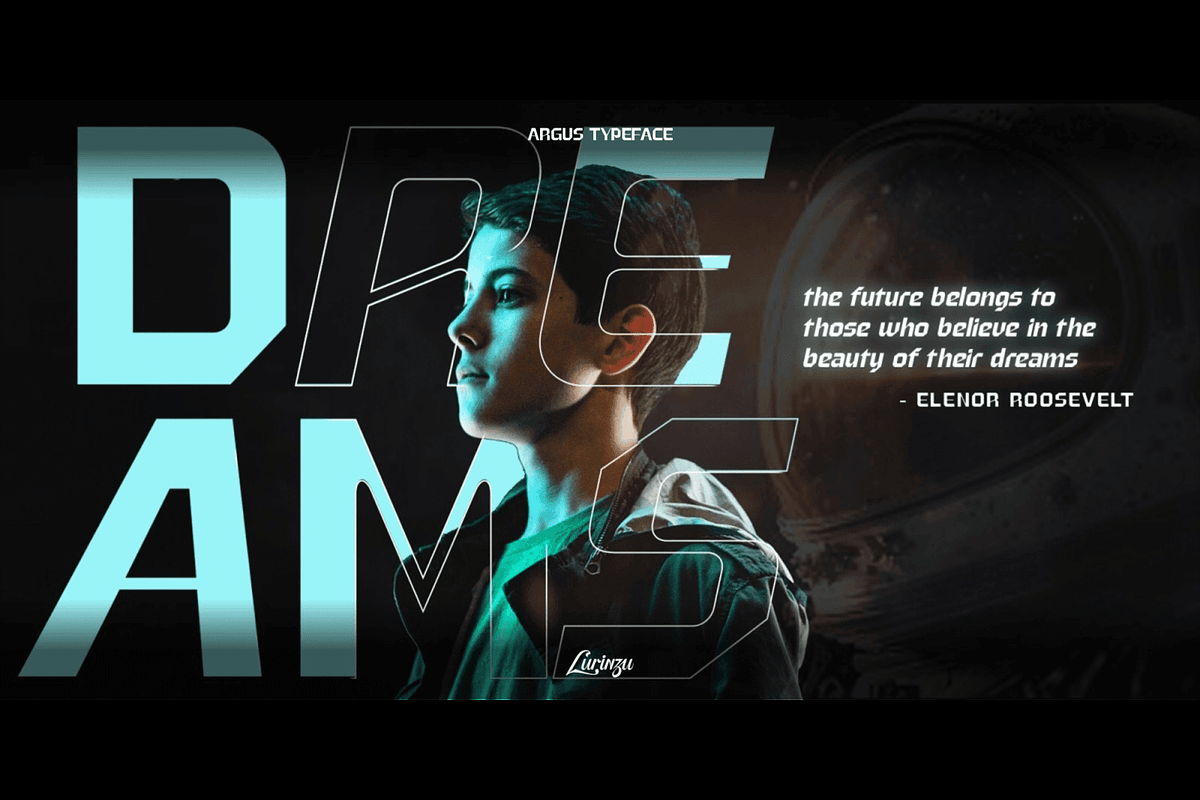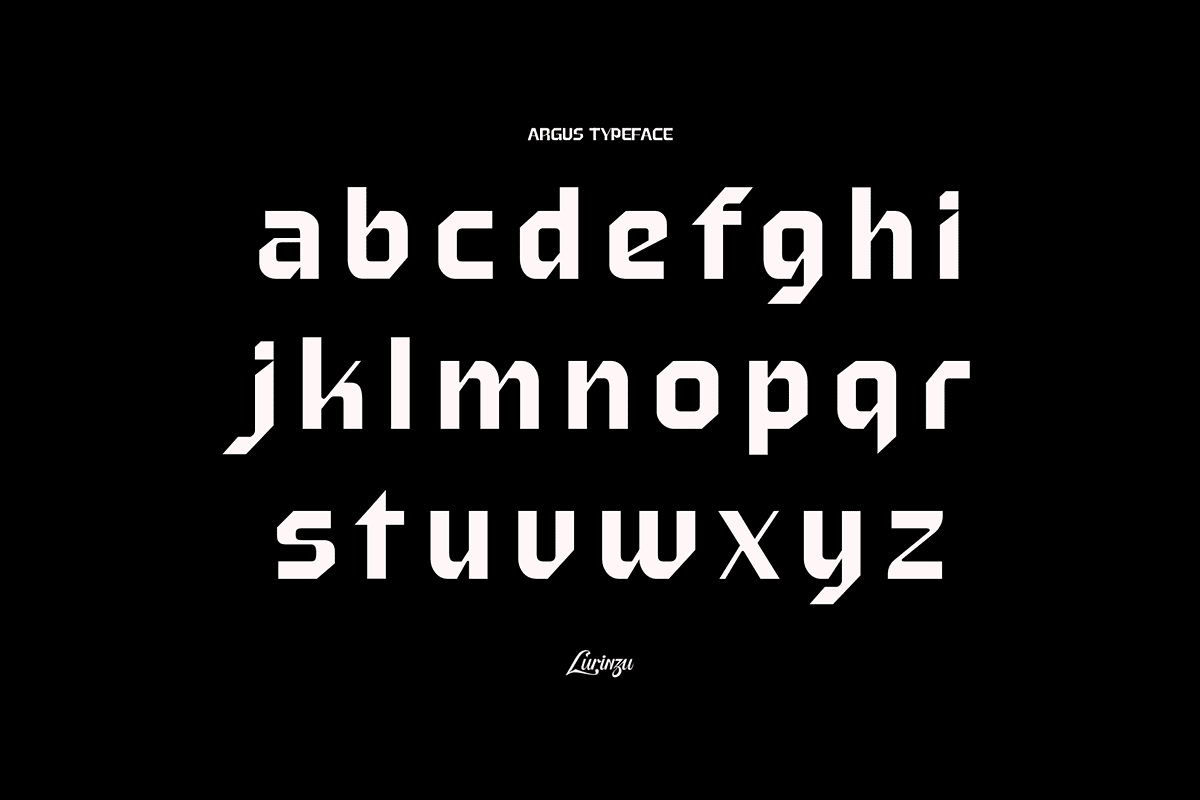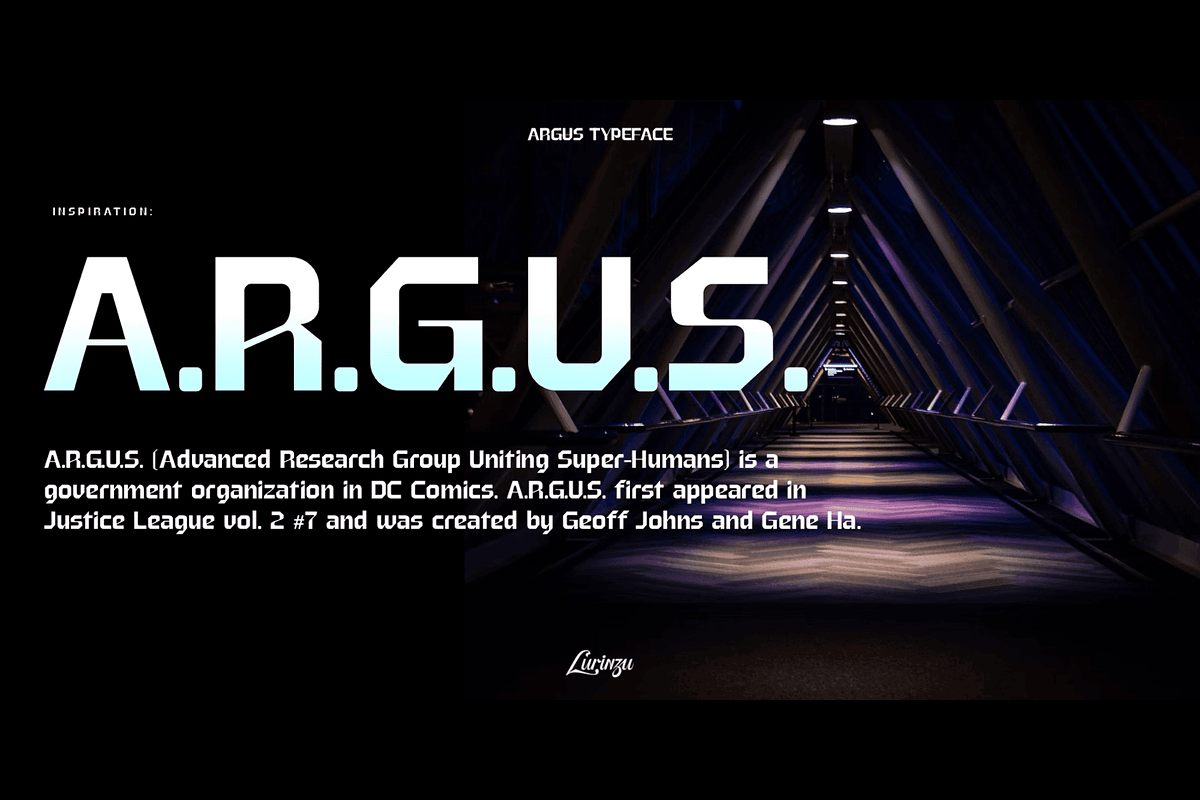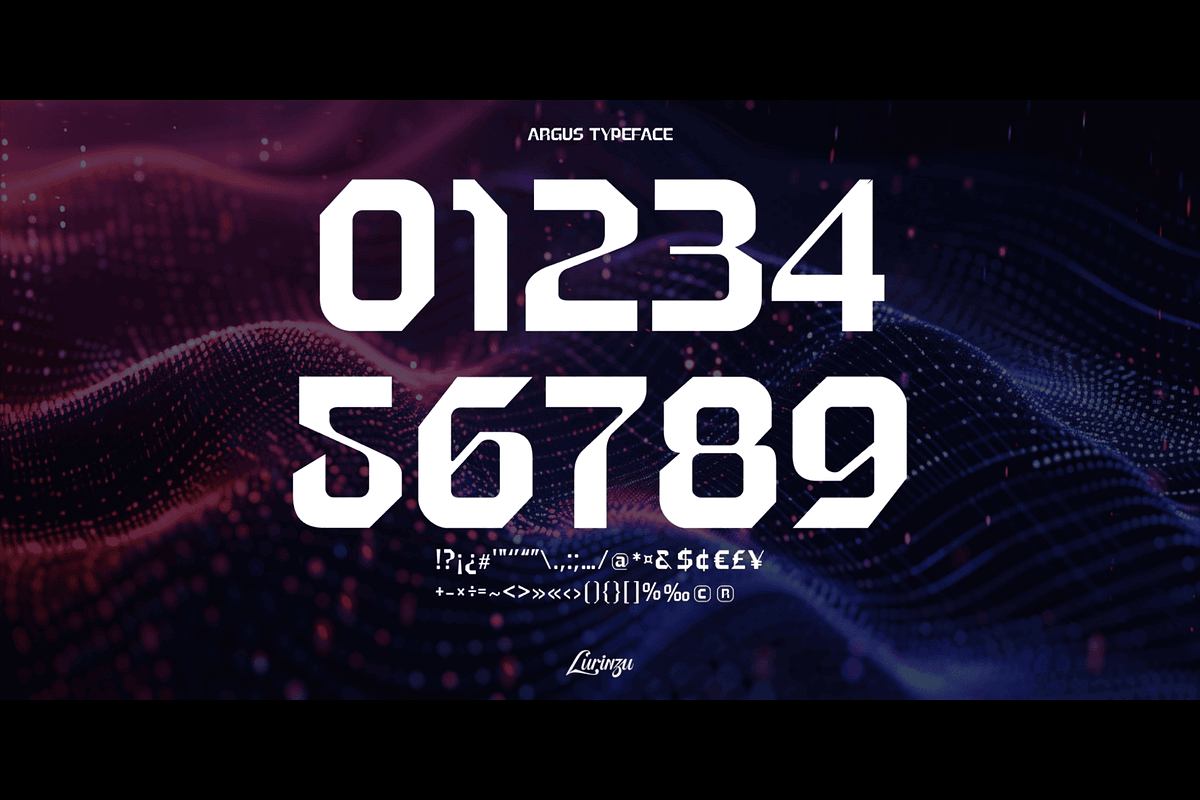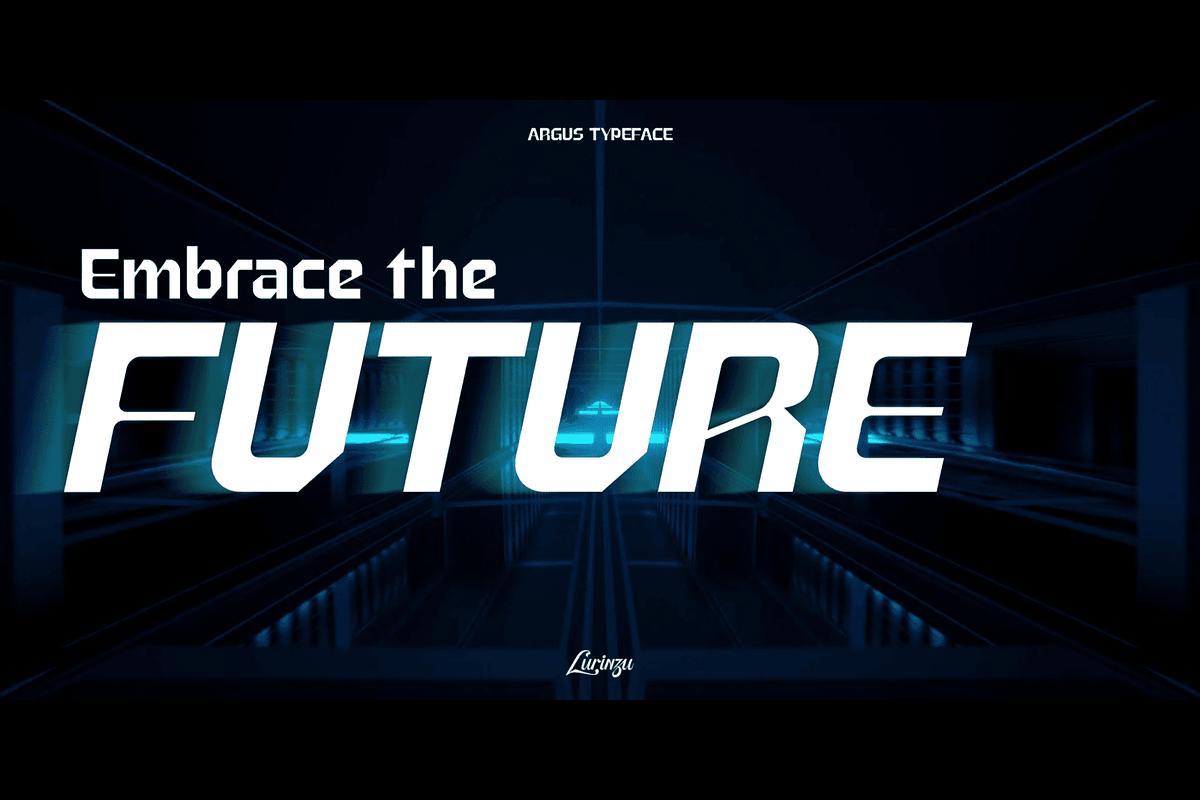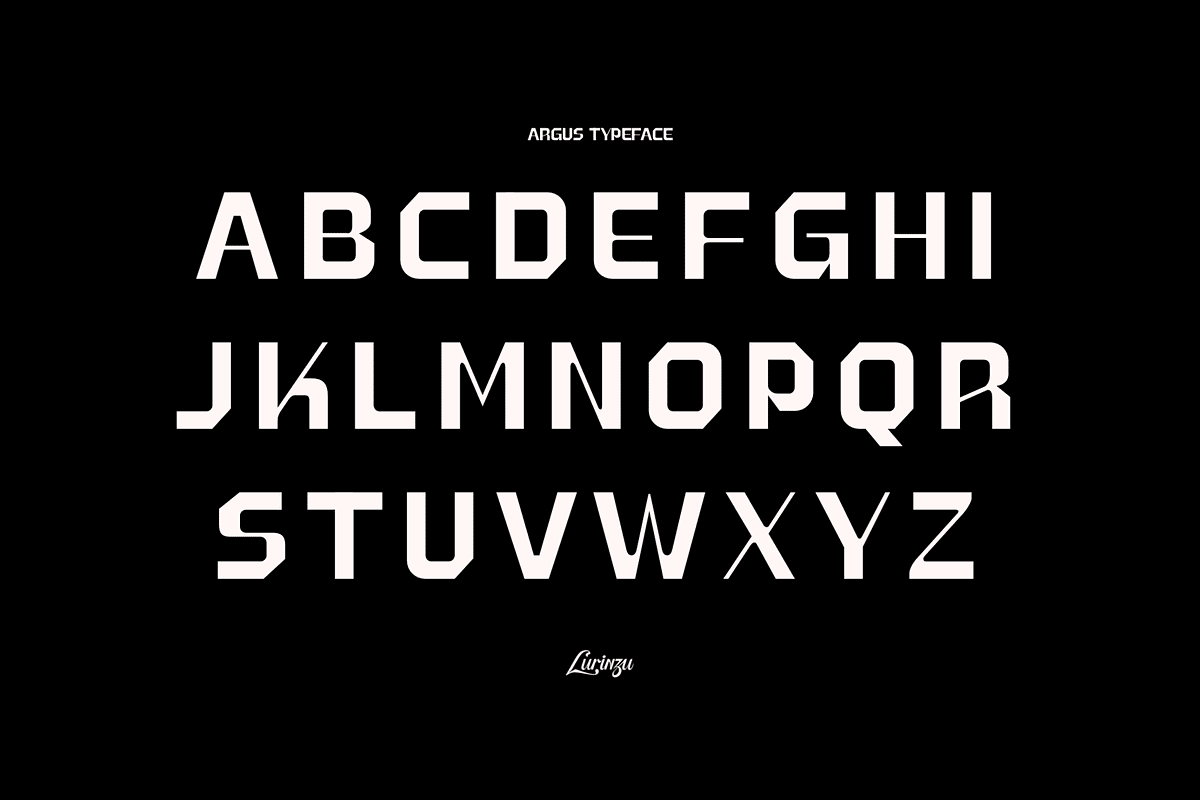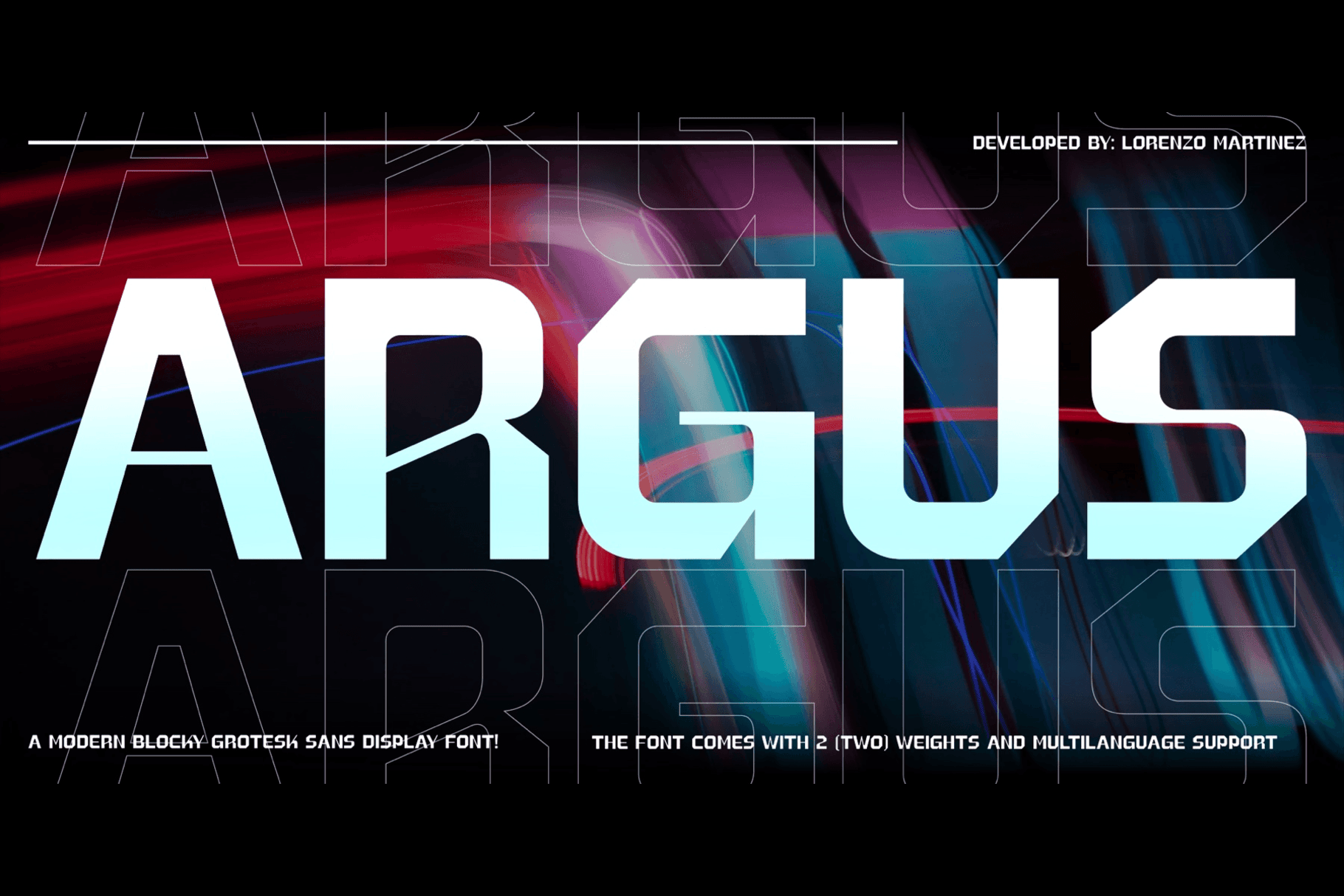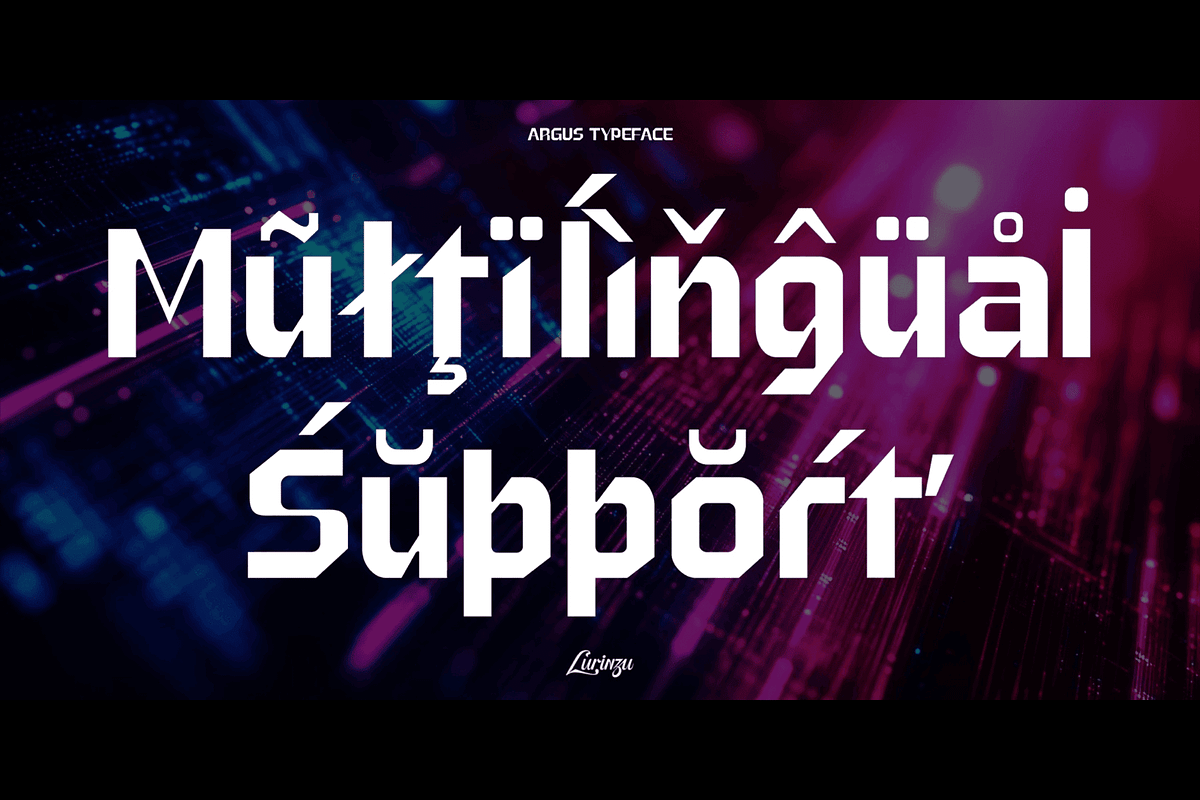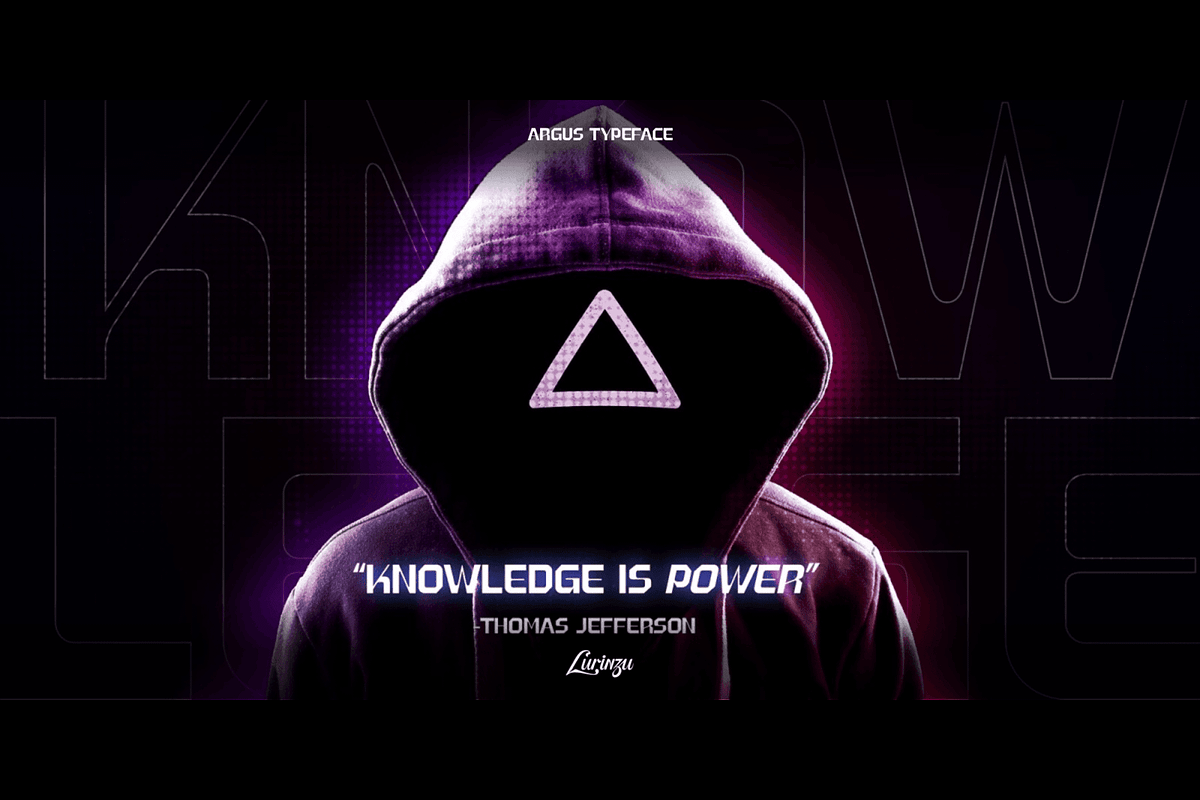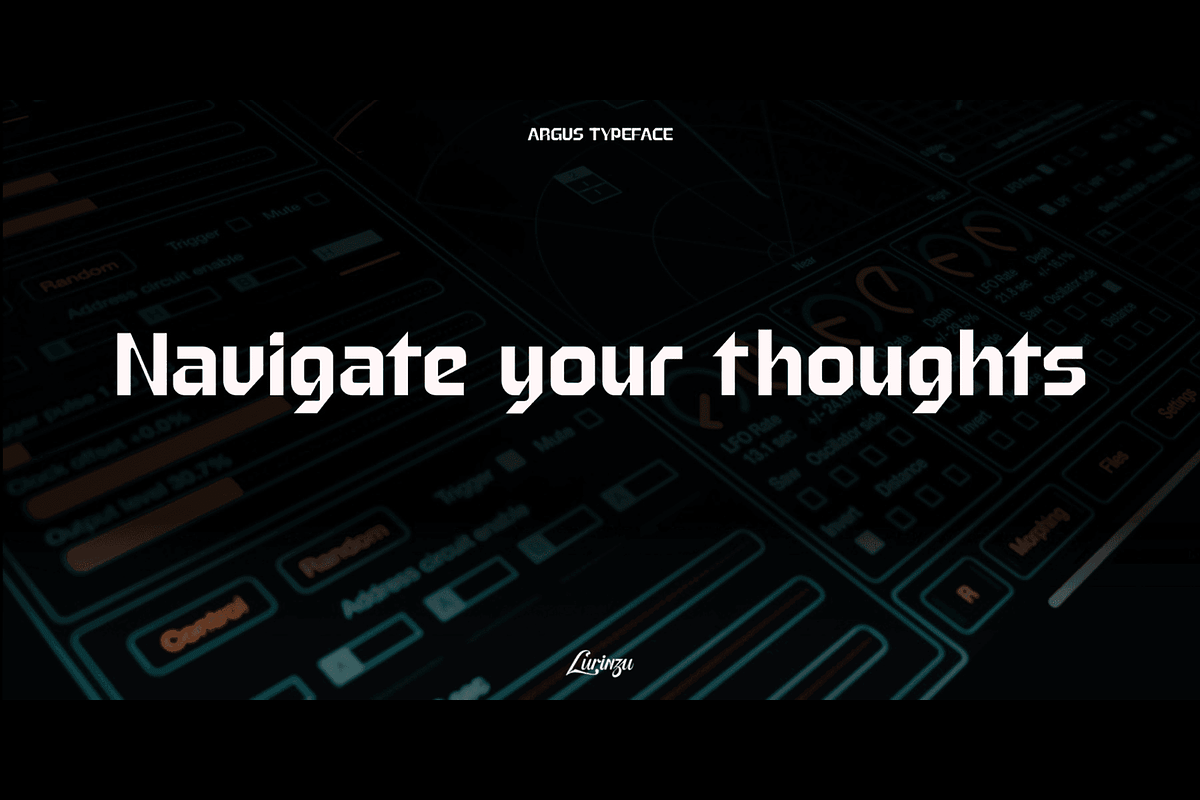
Argus - Blocky Grotesk Typeface
"Argus" is a blocky modern grotesk typeface that is inspired by the fictional setting in comics. (DC universe).
Argus is developed to be mainly used for titles, covers, and headlines for modern (and futuristic) type of medias. The exaggerated contrast of the "thins" and "thick" of this font gives the font a modern twist for a blocky grotesk font.